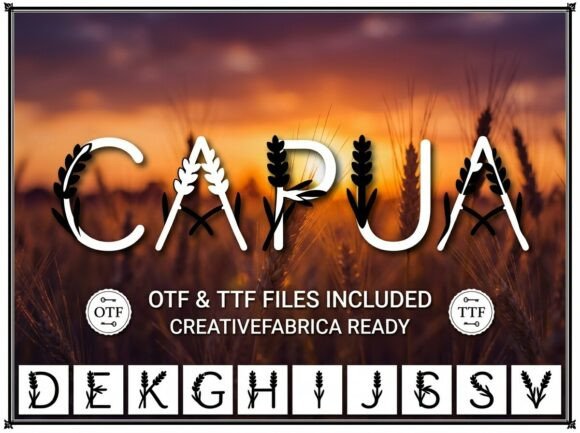
Unlock Your Creative Potential with Capua Font
First Impressions: A Decorative Display Font Like No Other
Capua Font is a decorative display font that is designed to be the centerpiece of any layout. With its distinct artistic elements and strong character, it’s perfect for creators who want to break away from the ordinary. Whether you’re working on bold headlines, creative branding, or packaging, Capua Font delivers a high-end, professional aesthetic without compromising on personality.
⚠️ Technical Note: The font is an All-Caps display typeface. By design, it does not contain lowercase letters, making it a powerful tool for logos, titles, and decorative initials.
- ✨ Unique artistic elements that add a touch of sophistication to any design.
- ✅ Strong character that commands attention without being overpowering.
- ⚡️ Perfect for creating bold headlines, titles, and decorative initials.
⚠️ Keep in mind that Capua Font is an All-Caps display typeface, which means it doesn’t come with lowercase letters. While this might seem limiting at first, it’s actually a deliberate design choice that makes the font perfect for its intended use cases.
🤔 Some users might find the font a bit tricky to pair with other fonts, but with a little experimentation, you can find the perfect match.
Capua Font was inspired by the rich history of decorative typography and the need for modern designers to have access to high-quality, unique fonts. The designer aimed to create a font that would stand out in any layout while still being versatile enough to use across various design projects.
Q: Is Capua Font suitable for body text?
A: No, Capua Font is designed as a display typeface and is best used for titles, headlines, and decorative elements. Its lack of lowercase letters and distinctive style make it less suitable for body text.